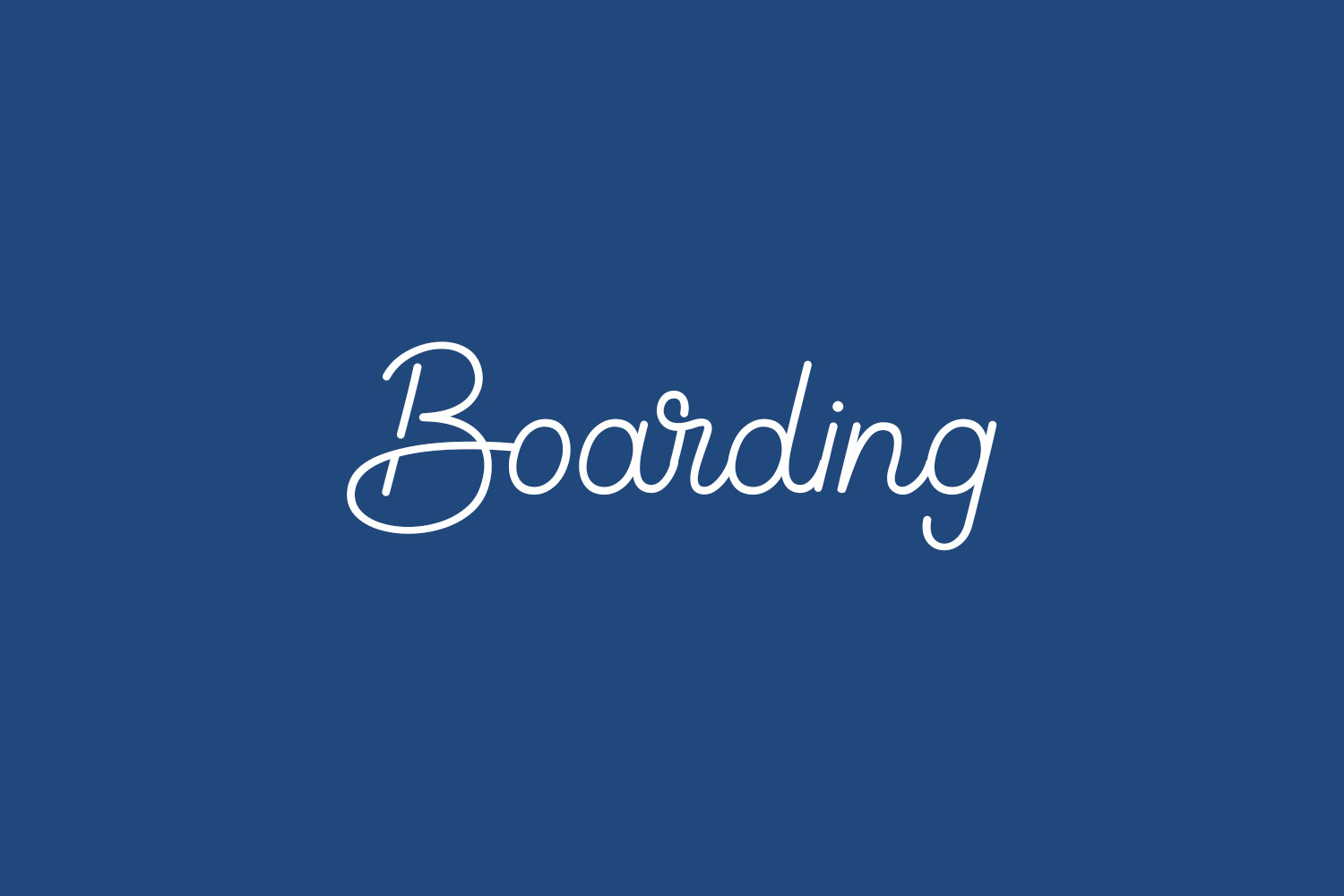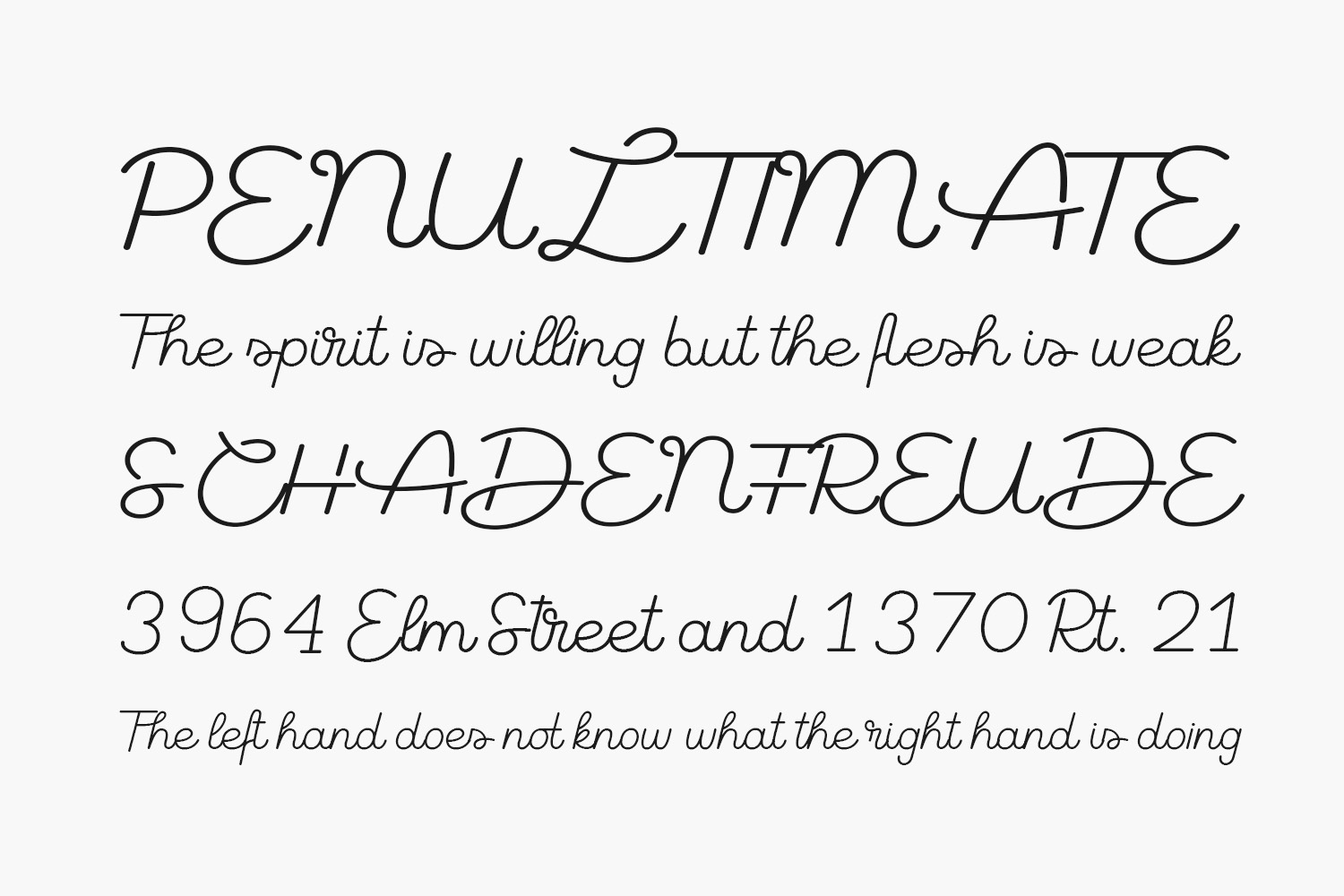
Boarding Free Font was designed by Shaped Fonts and is free for personal use only. The full version comes with loads of contextual alternates, initial & terminal forms, ligatures, and more which sums up to an incredible amount of 600 glyphs. The monoline look makes the font versatile and suitable for any project. Please purchase the full version for commercial use.